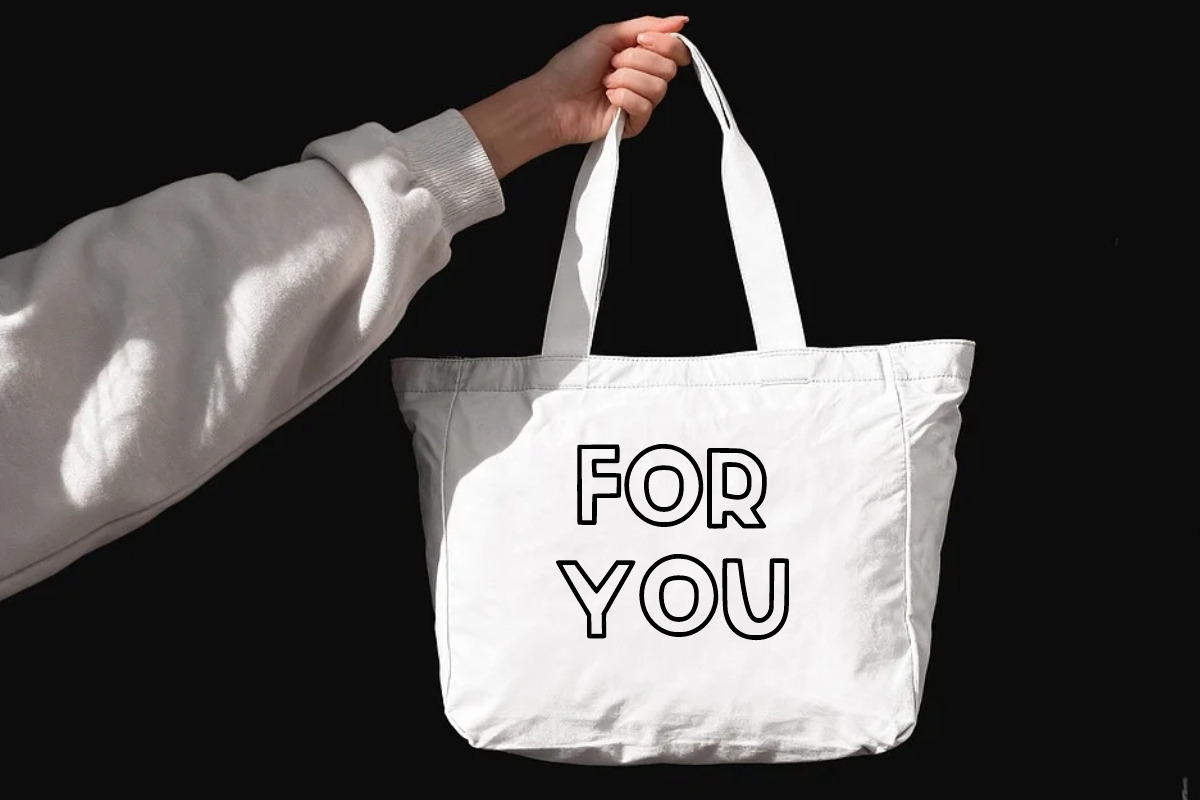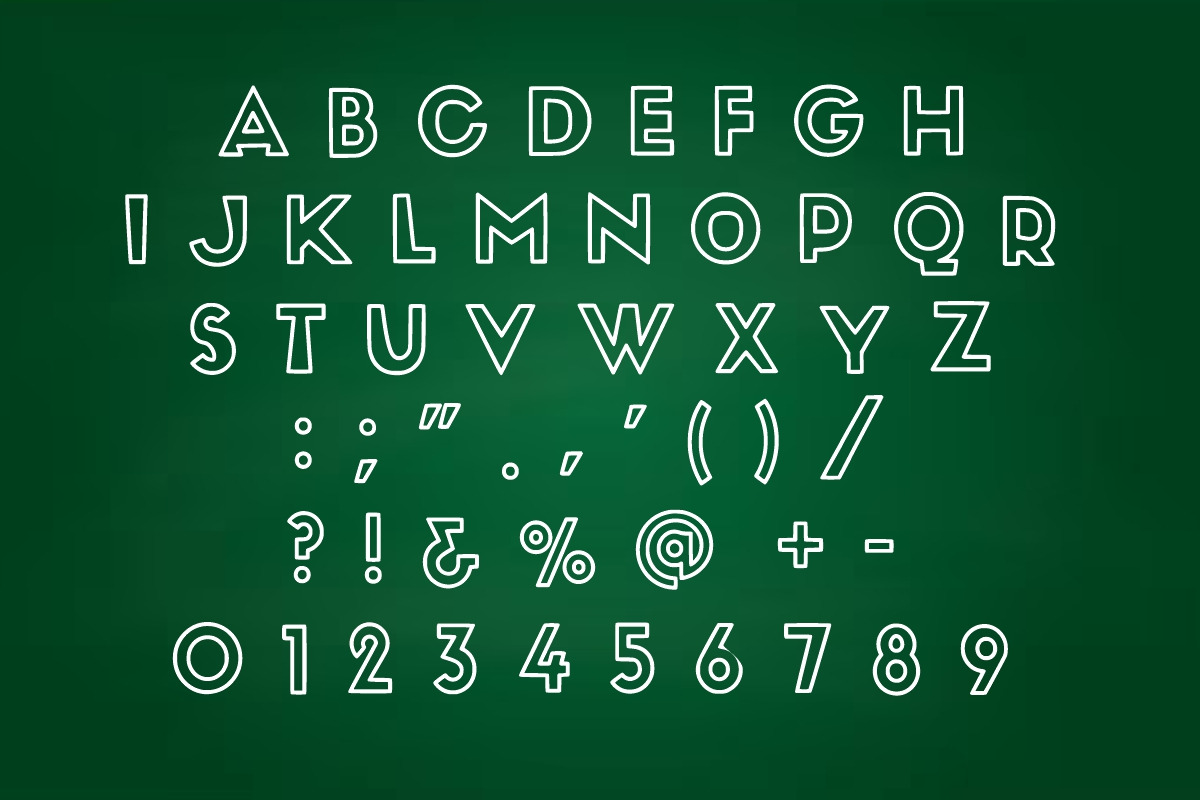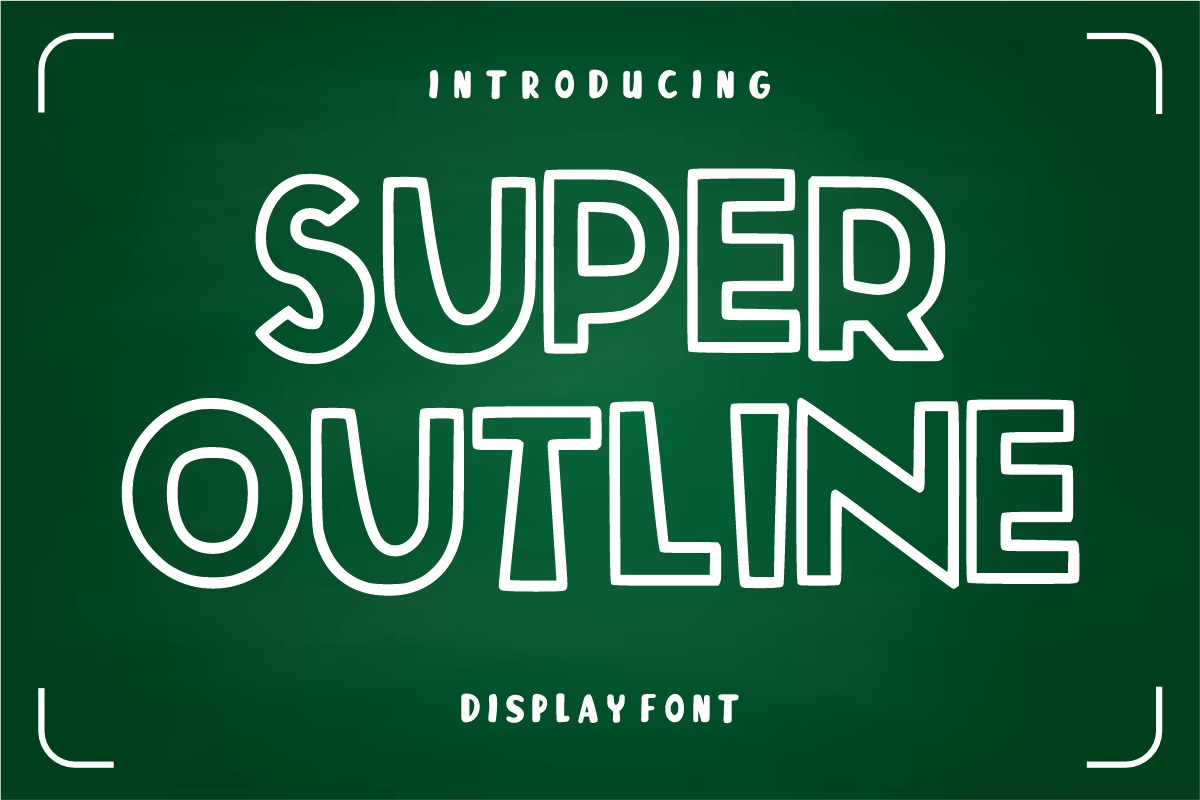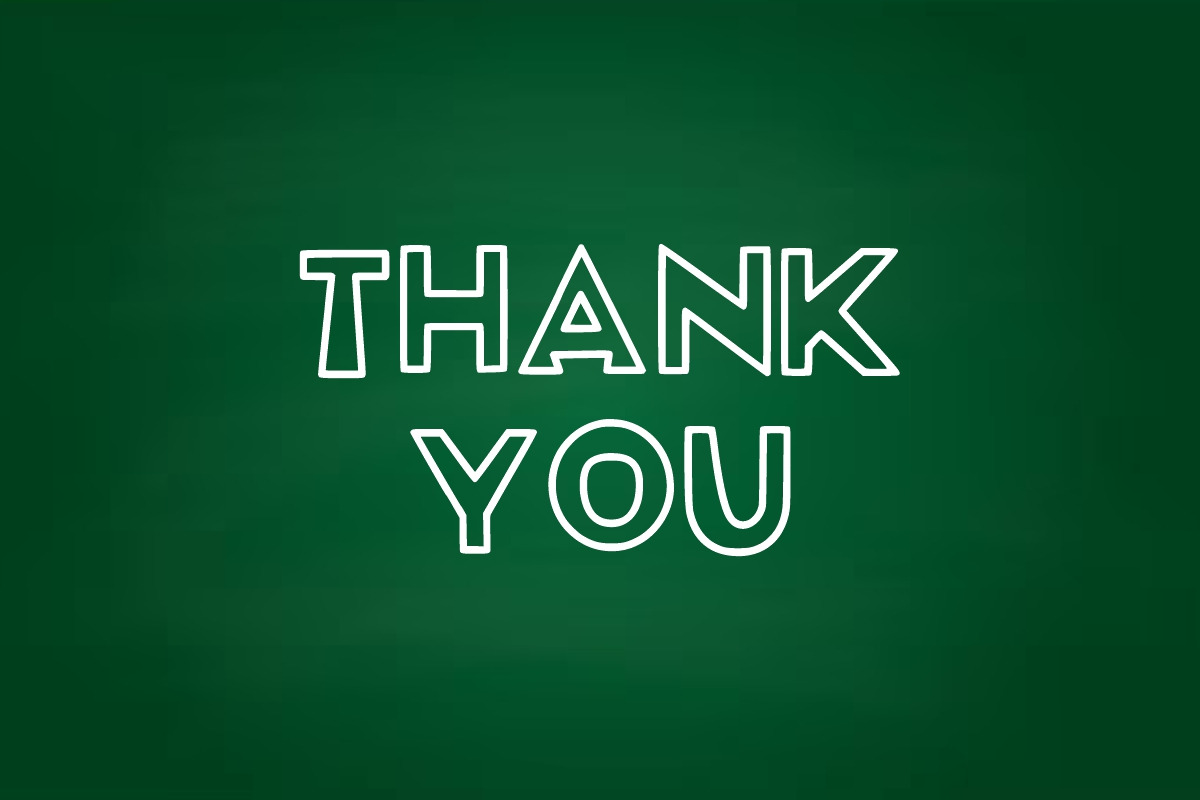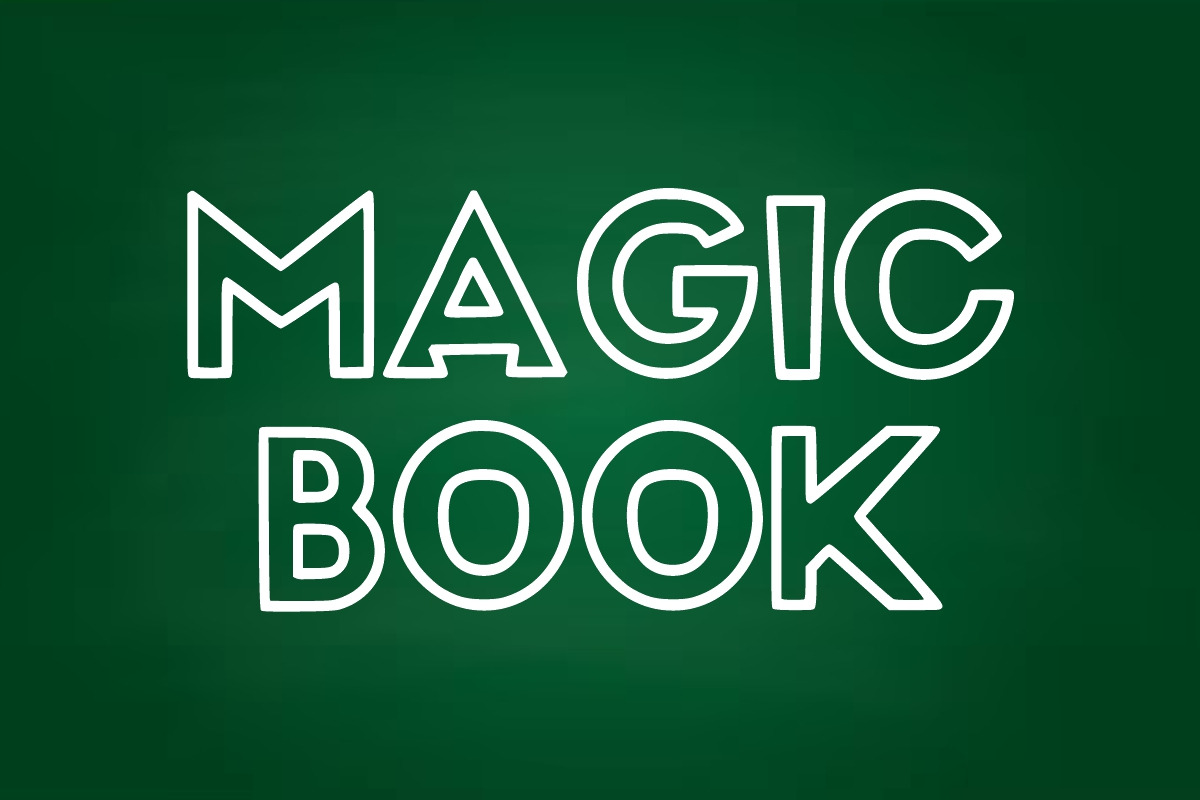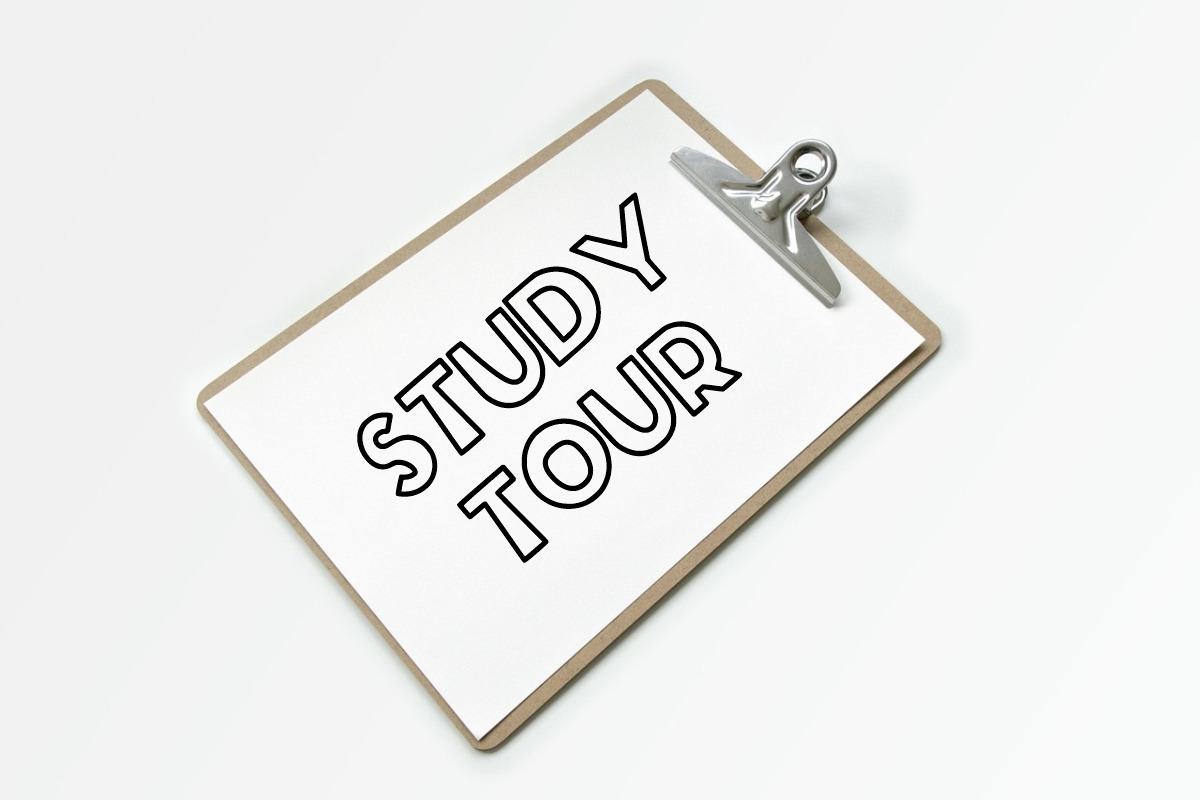
Super Outline font
Super Outline is a fun and double outline display font with rounded lettering. It is suitable for any winter and holiday branding project, product packaging, invitations, quotes, t-shirts, labels, posters, or anything that needs a touch of joy.